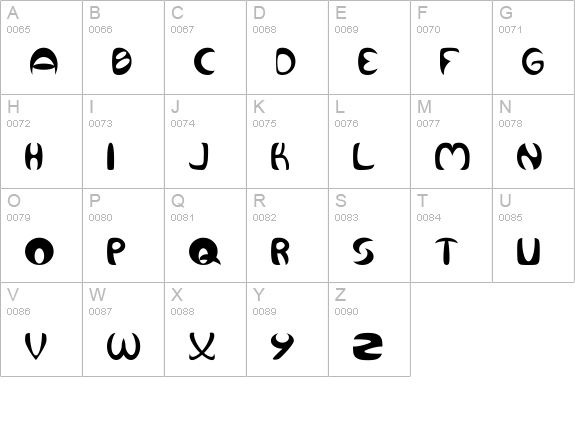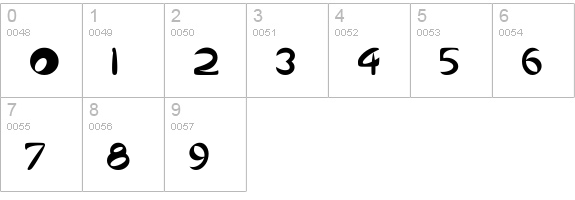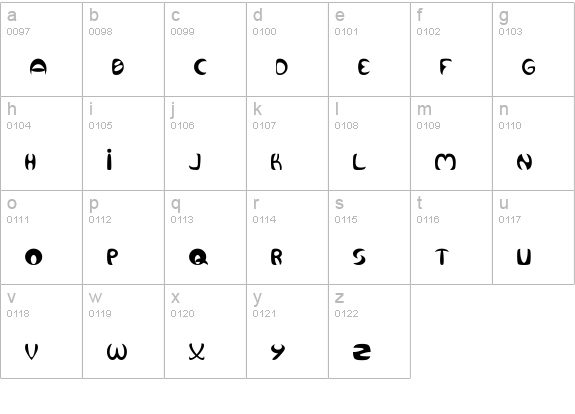
Qurve font is a modern and stylish typeface that brings a touch of elegance to any design project. With its sleek lines and curved edges, this font is perfect for creating eye-catching headlines, logos, and branding materials. But what makes Qurve font even more appealing is that it is completely free! Yes, you heard it right. This stunning font is freely available to download at FontsMarket.com. Whether you're a professional designer looking for a versatile font to add to your collection or a casual user in need of a beautiful typeface for personal projects, Qurve font is the ideal choice. Its clean and legible characters make it suitable for a wide range of applications, from print materials to digital designs. Not only does Qurve font offer a visually pleasing aesthetic, but it also provides excellent readability, ensuring that your message is delivered effectively. Its unique combination of bold and elegant features sets it apart from other fonts, making it a standout choice for any creative endeavor. So why wait? Take advantage of this amazing opportunity to enhance your designs with Qurve font. Download it for free at FontsMarket.com and unleash your creativity today!